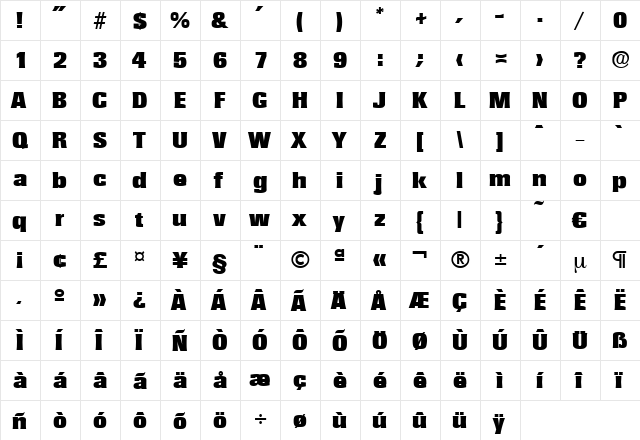
Rochester-Heavy Regular
Design Context for Rochester-Heavy Typeface
Rochester-Heavy takes a measured approach to typography — its balanced proportions and neutral character make it a reliable workhorse for both digital and print work.